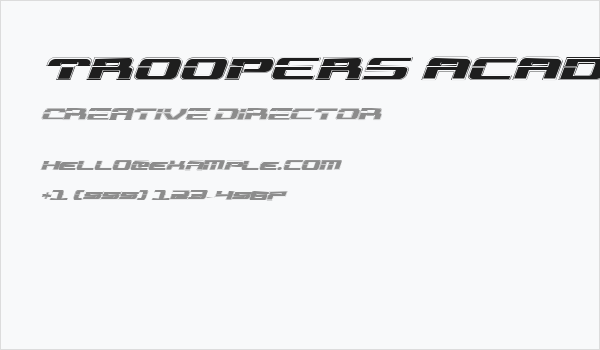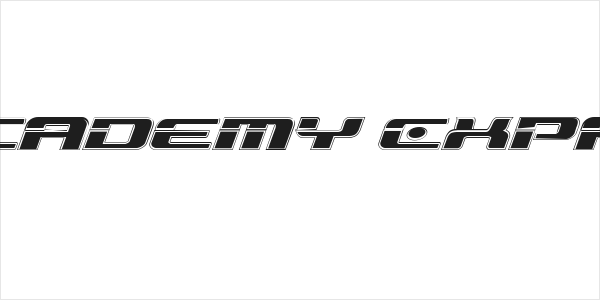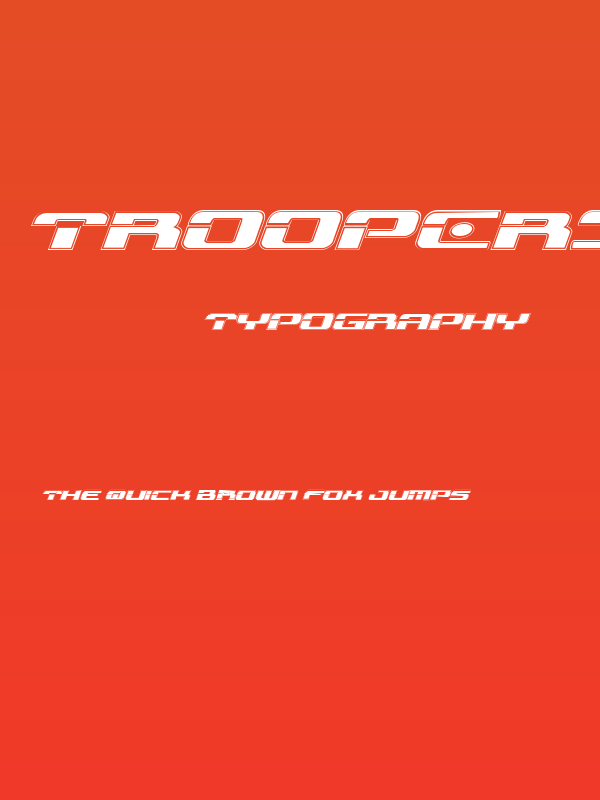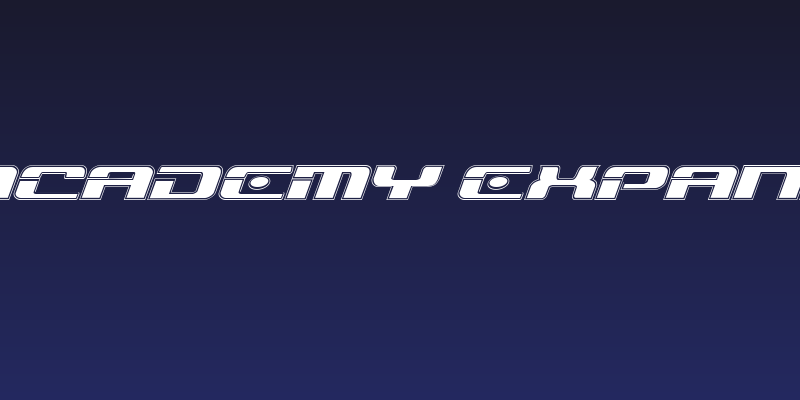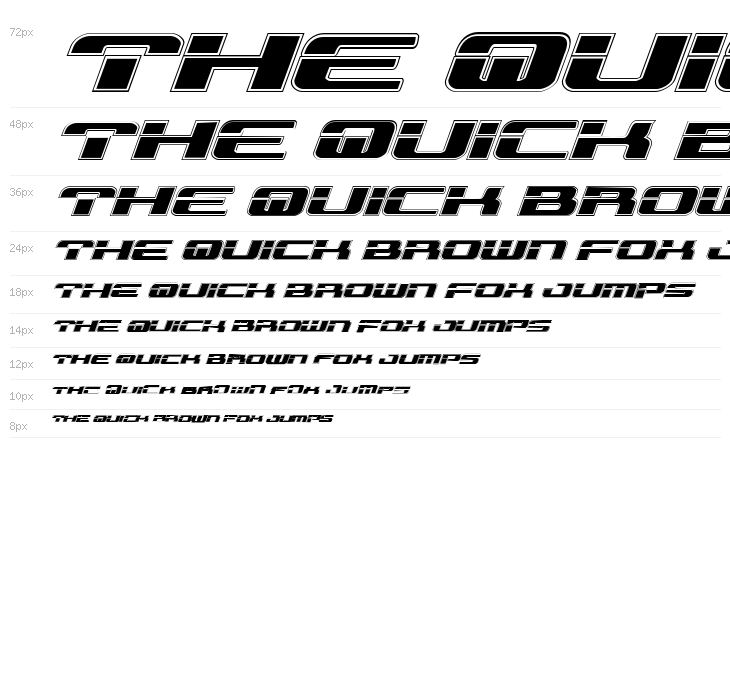
Troopers Academy Expanded Italic Font
Troopers Academy Expanded Italic Description
This font features a futuristic and dynamic design with a distinct italic slant, giving it a sense of motion and speed. The characters are bold and expanded, with a unique geometric structure that incorporates sharp angles and clean lines. The font's design is reminiscent of sci-fi themes, making it ideal for projects that require a modern and edgy aesthetic. The uppercase and lowercase letters maintain a consistent style, while the numerals and special characters complement the overall look with their cohesive design.
| Proposed Projects | Ideal for sci-fi movie posters, video game titles, tech branding, and futuristic event flyers. |